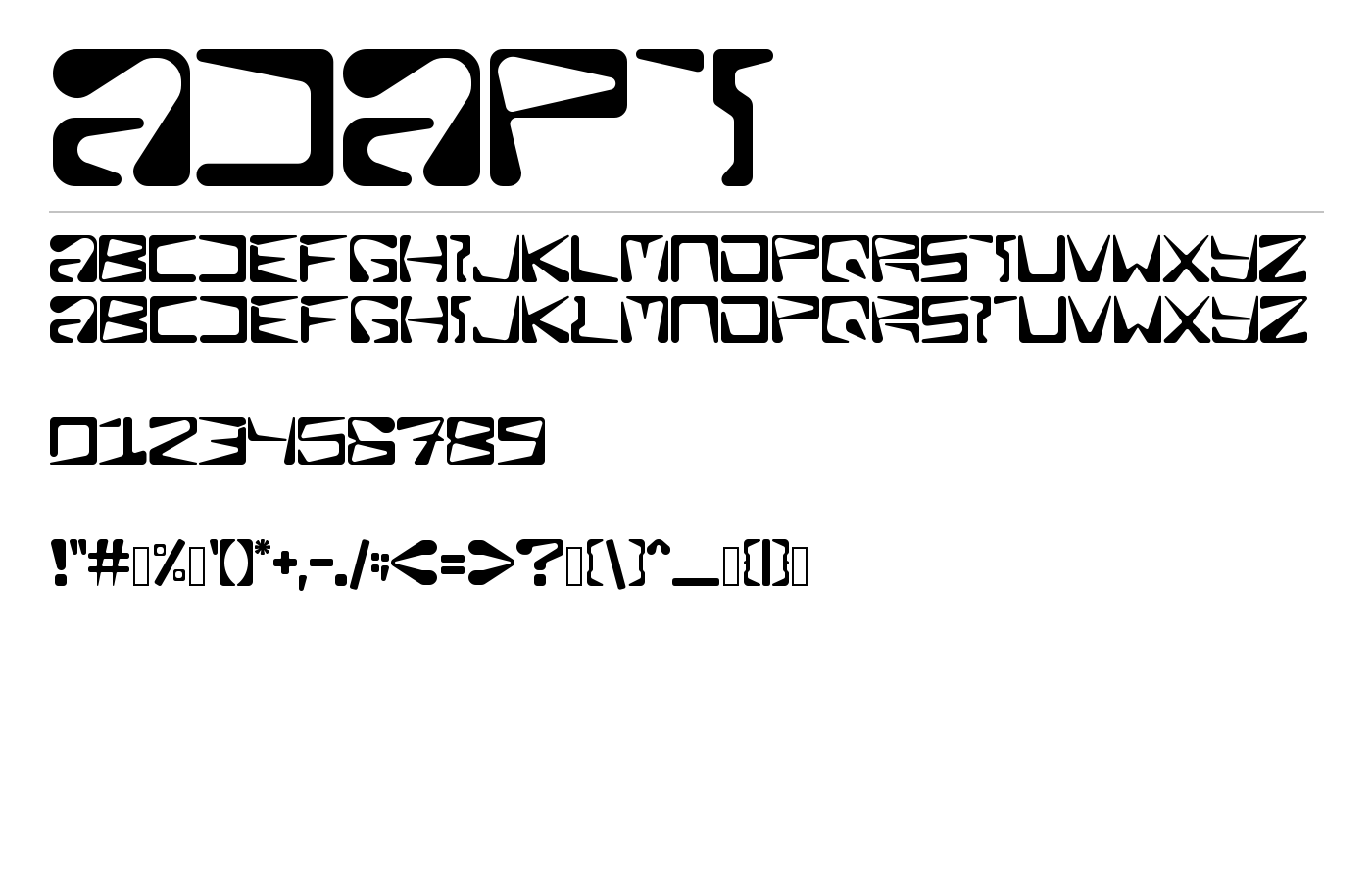
ADAPT is a bold, futuristic sans serif font characterized by geometric shapes and sharp, high-contrast strokes with distinctive cut-out details, offering a unique and edgy appearance. Its compact letterforms and stylized characters create a modern, tech-savvy feel, making it well-suited for branding, logos, and digital media where a strong, innovative impression is desired.
ADAPT Font